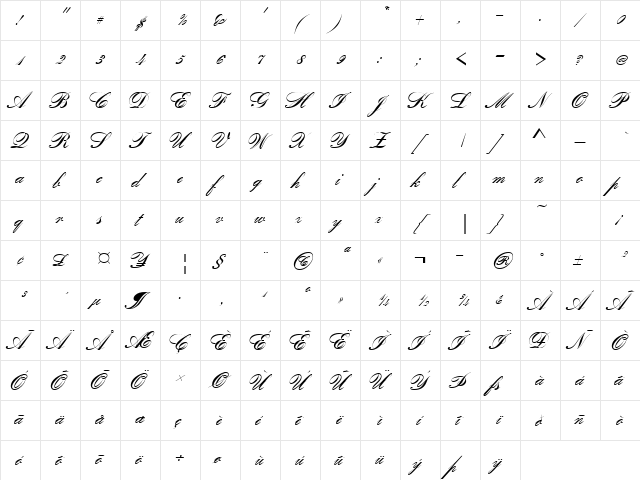
Romantica script Regular
Design Context for Romantica script Typeface
Romantica script flows with the natural rhythm of handwritten lettering, making it ideal for designs that call for warmth and personal expression.
Font Pairing: Combine Romantica script with a simple geometric sans for maximum contrast — the tension between flowing curves and clean structure is a classic typographic pairing.
Pro Tip: Pair Romantica script with a clean sans-serif for supporting text. The contrast between fluid script and geometric structure creates an elegant typographic hierarchy.